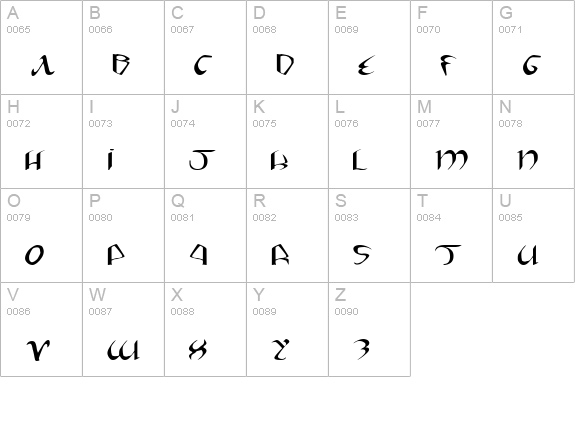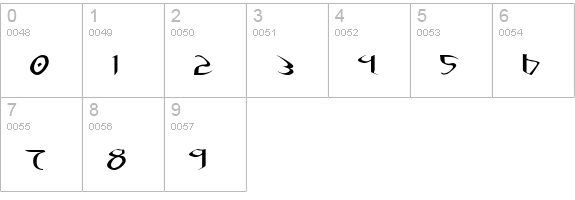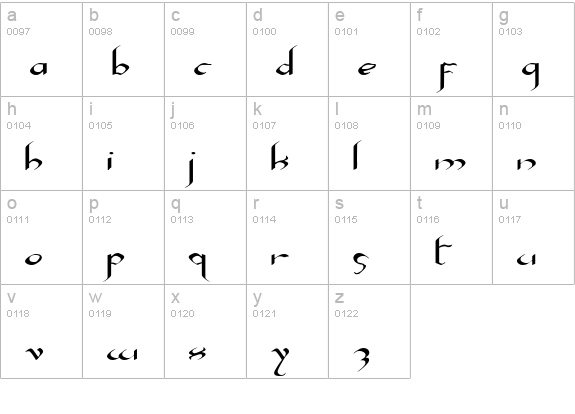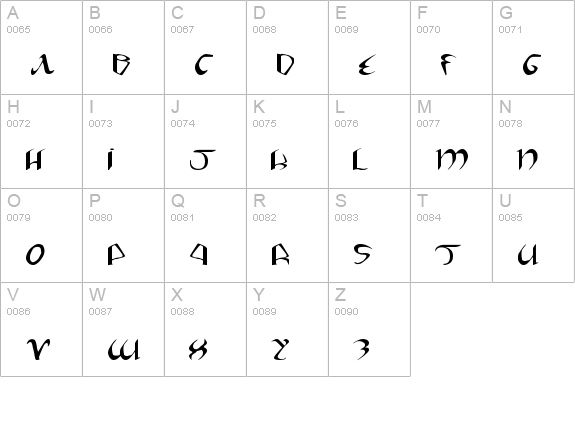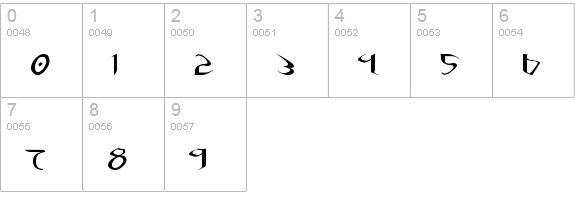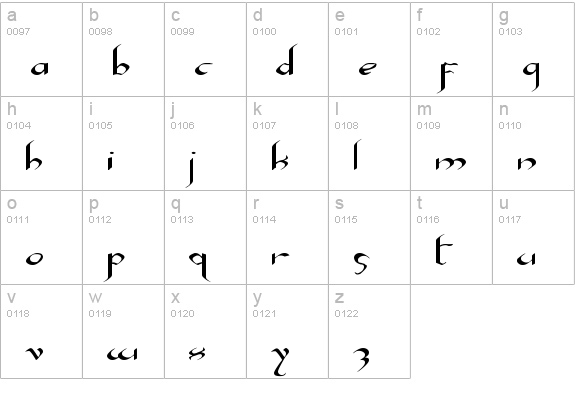
Xaphan II Expanded is a distinctive, extended-width variant in the Xaphan typeface family \xE2\x80\x94 well suited to design and typography projects.
Xaphan II Expanded font is a modern and versatile typeface that exudes elegance and sophistication. With its elongated and sleek design, this font is perfect for creating impactful headlines, branding materials, and editorial designs. The Xaphan II Expanded font strikes the perfect balance between professionalism and creativity, making it suitable for a wide range of design projects. What sets Xaphan II Expanded font apart is its unique blend of classic and contemporary elements, making it a timeless choice for any design endeavor. Whether you are working on a fashion magazine layout, a luxury brand logo, or a sleek website design, this font will elevate your work to new heights. The best part about Xaphan II Expanded font is that it is free for personal and commercial use. You can download this stunning font at FontsMarket.com and start incorporating it into your projects today. Don't miss out on the opportunity to add a touch of sophistication and style to your designs with Xaphan II Expanded font.